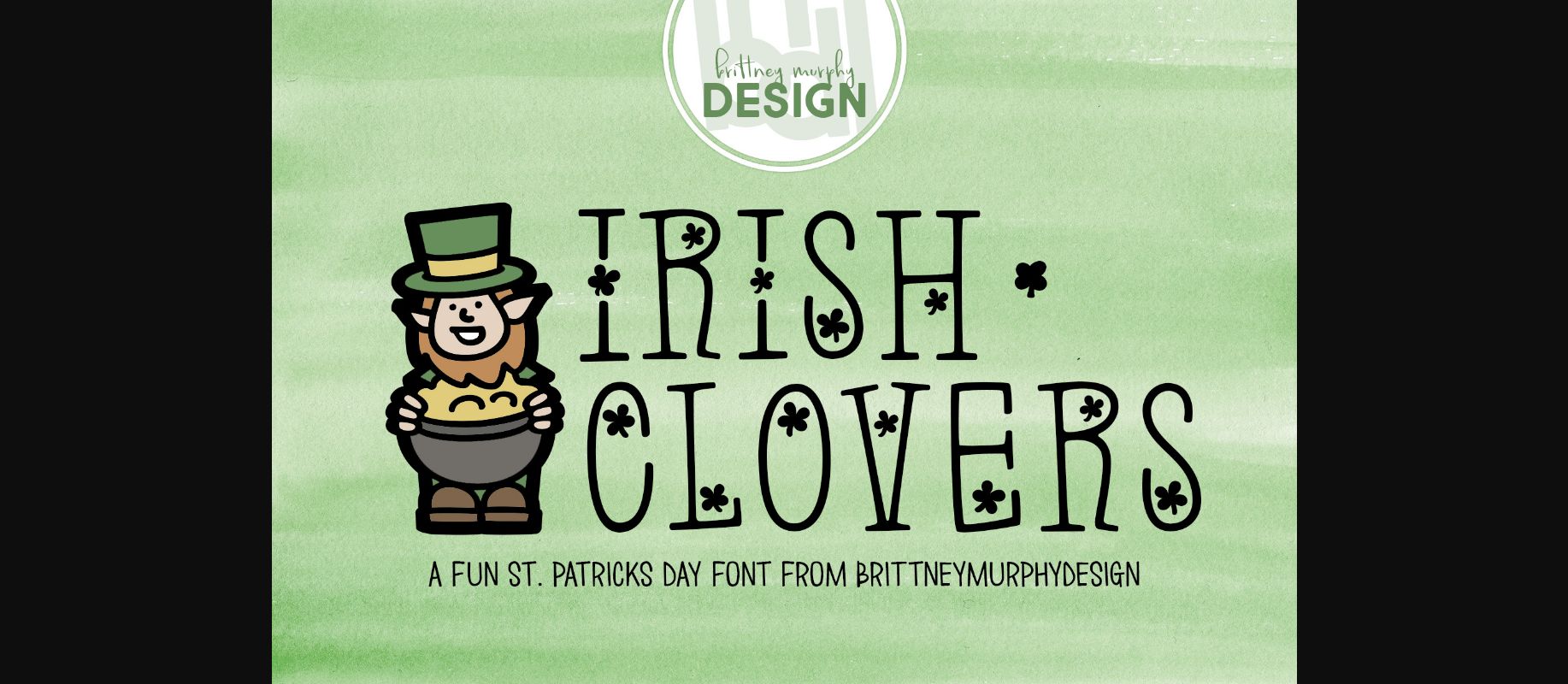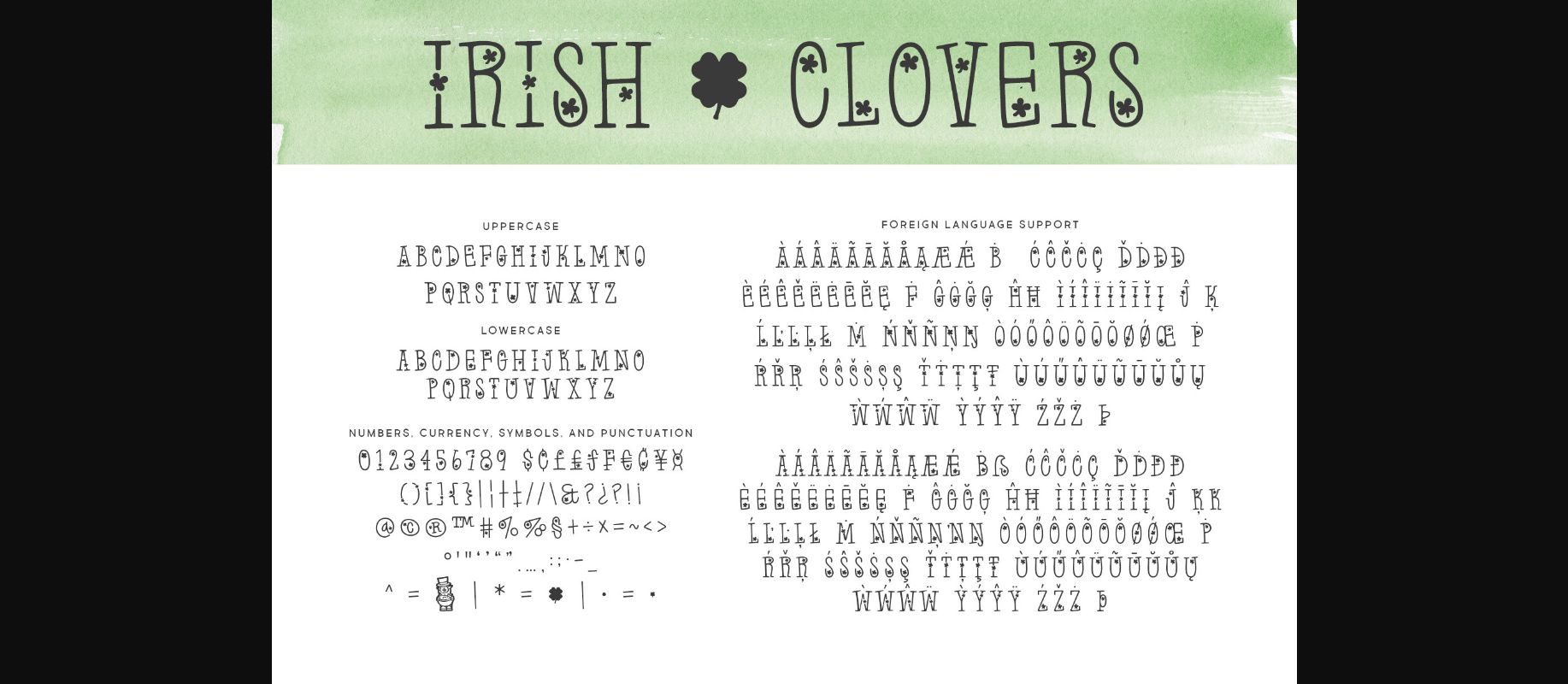
About Irish Clovers Font
A lucky St. Patricks Day font featuring an all-caps serif with lots of fun decorative clovers. This font contains over 300 characters, with support for most Latin-based languages, plus numbers and punctuation.
Special Characters:
Use the circumflex ^ for the leprechaun, use the asterisk * for the big clover, and use the bullet • for the small clover.